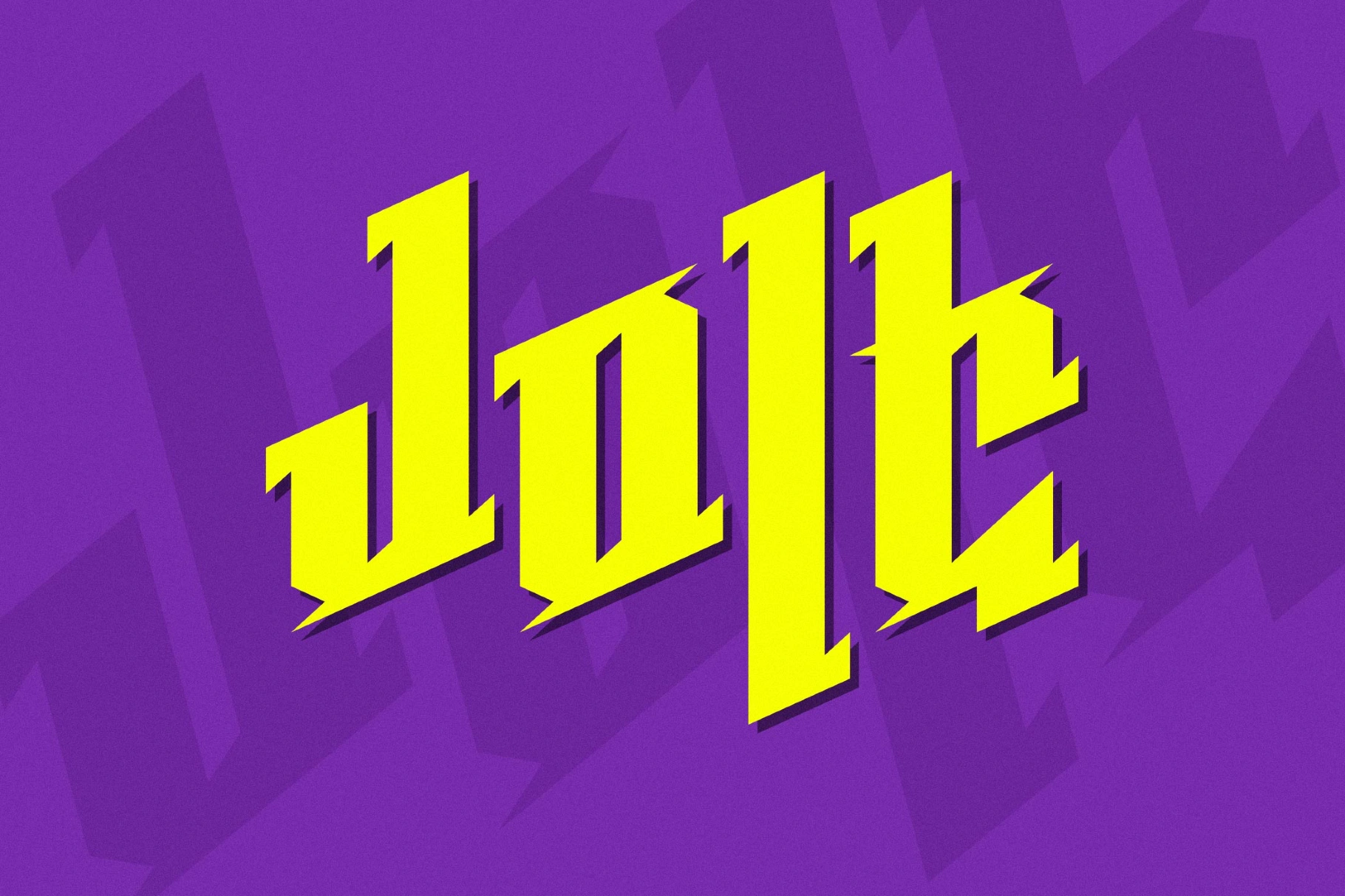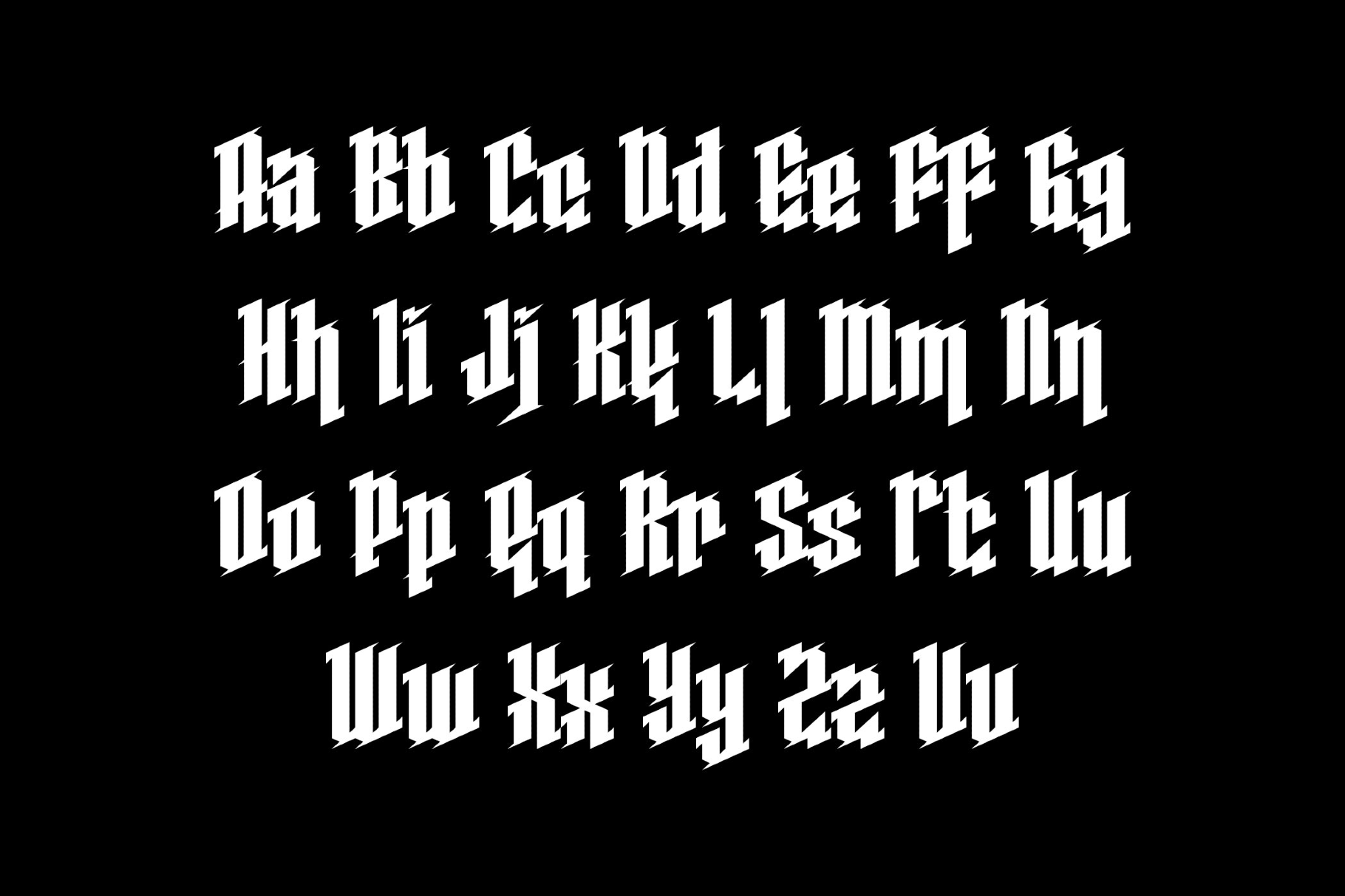
Jolt 80s Gothic Font
jolt
Jolt is an angular blackletter display with a hard diagonal drive. It's designed with beveled strokes, slabby feet, and blade-cut terminals, which altogether give it a jagged, energetic rhythm.
The font suits album titles and tour merch, energy drink cans, arcade or retro-FPS logos, moto and drift event posters, streetwear labels, tattoo-shop signage, occult or horror film credits, esports team wordmarks, and collectible card headers.